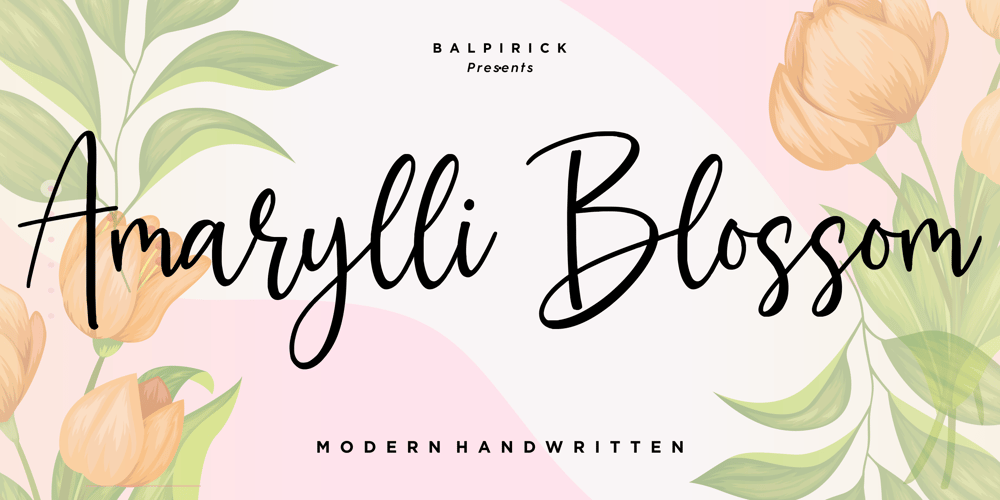
Amarylli Blossom
Amarylli Blossom font
Amarylli Blossom Font Family was designed by Restu Angga and published by Balpirick. Amarylli Blossom contains 1 styles and family package options. Amarylli Blossom is a sweet, soft hand-lettered handwritten font. The playful rounded characters make it the perfect font for creating stunning designs. Fall in love with its authentic feel and use it to create gorgeous wedding invitations, beautiful stationary art, eye-catching social media posts, and cute greeting cards.